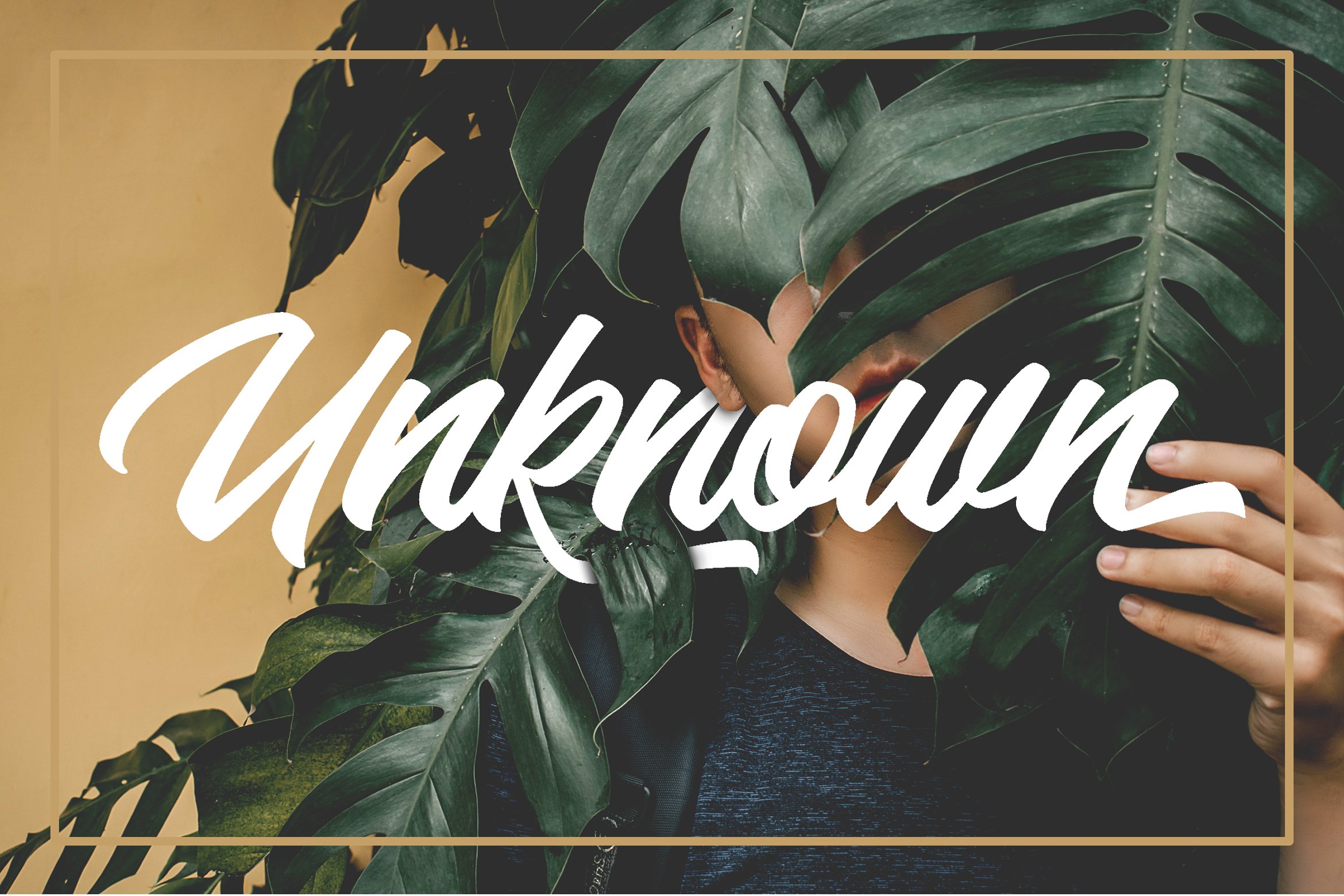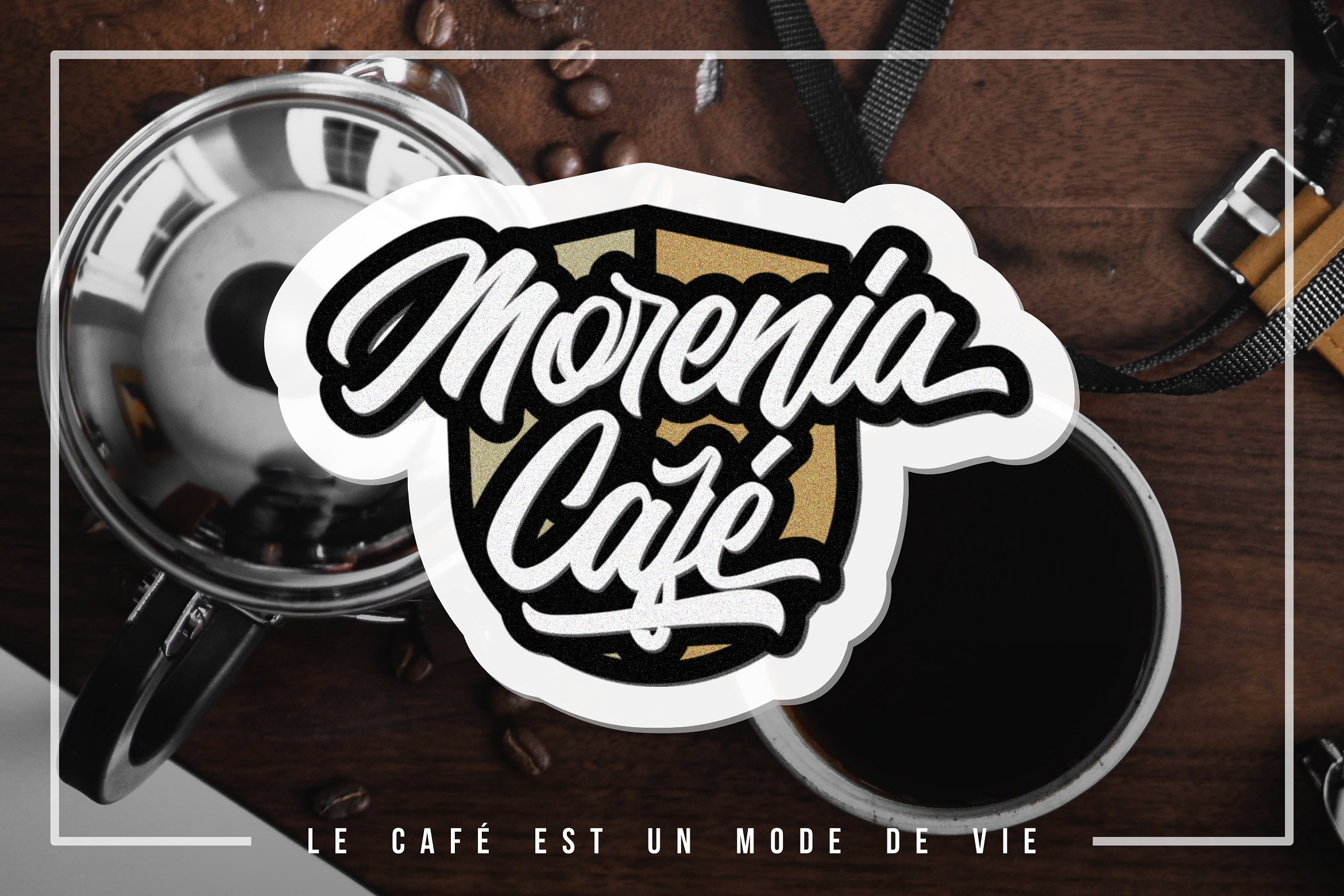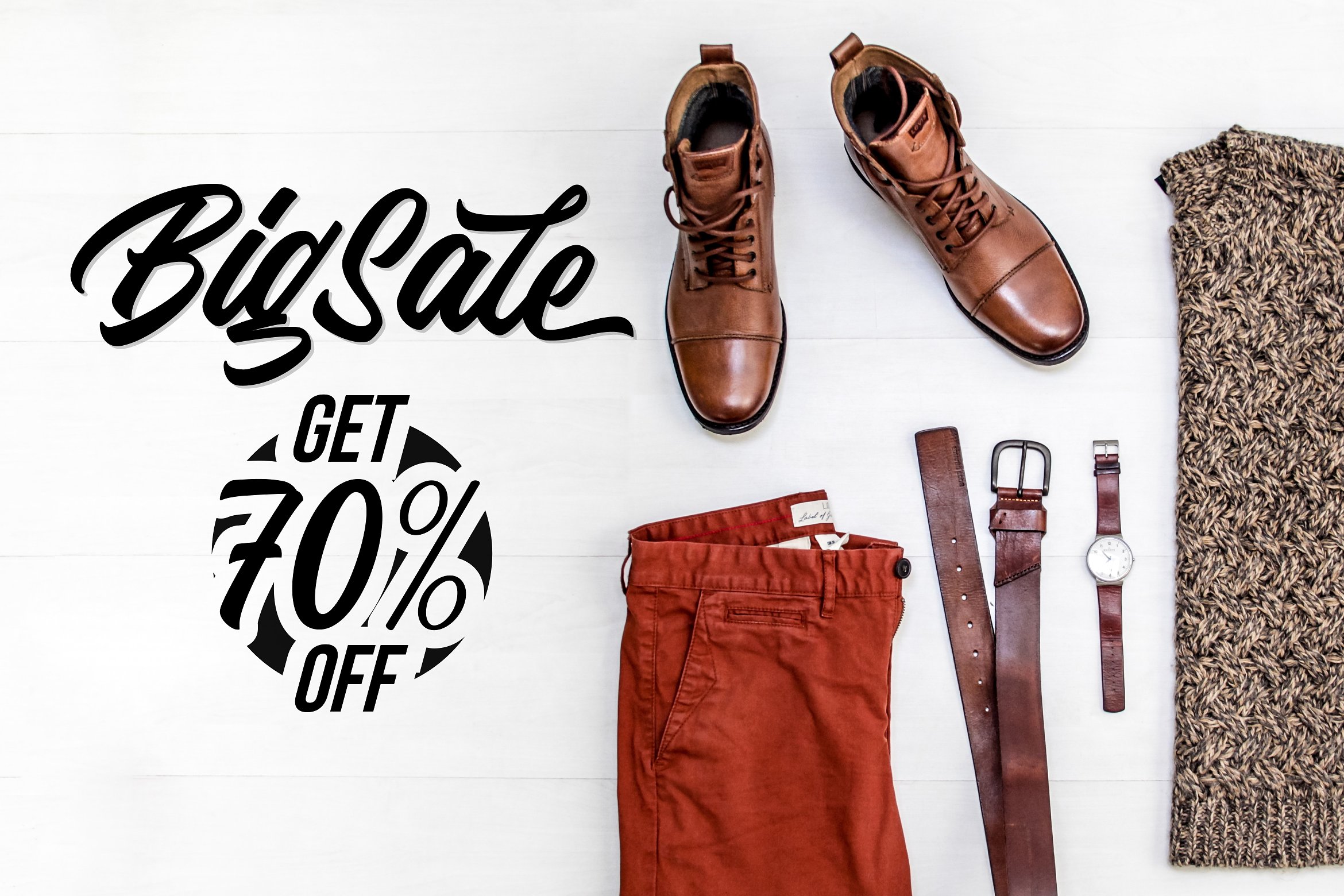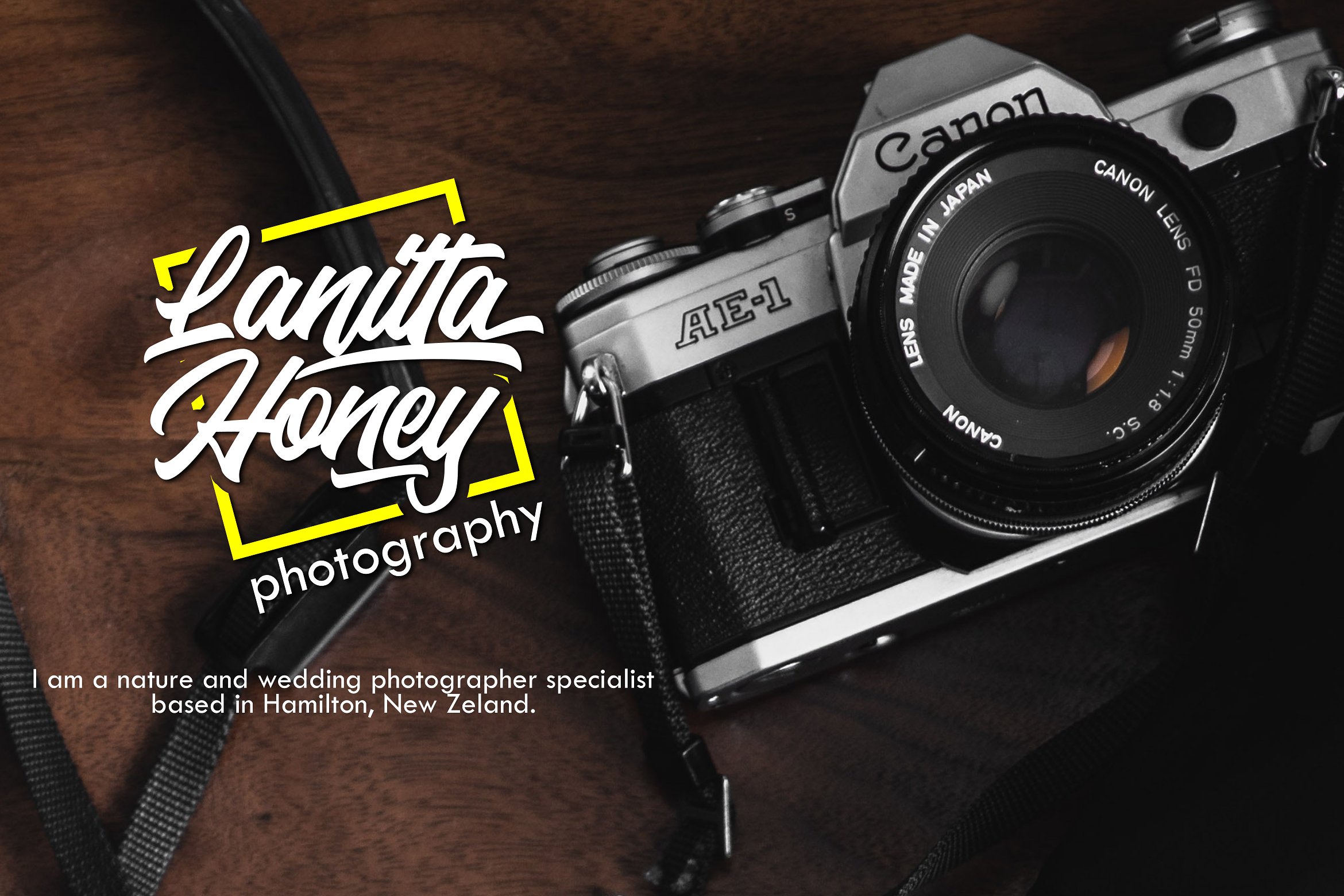
Backhill Bold Script Font
Thank you for looking this font. This font is crafted carefully in every its single scratch, created to look as close to a natural brush script so that it can create the perfect combination on each glyph. Introducing Backhill script font. Thunder Font designed and shared by Inspiratype. Backhill Bold Script Font is a font display is made by hand, inspired by classic posters. Comes with uppercase, lowercase, numerals, punctuations and so many variations on each characters include opentype alternates, common ligatures and also additional swash to let you customise your designs. Perfect to use for Logotype, Letterhead, Poster, Apparel Design, Label and etc.